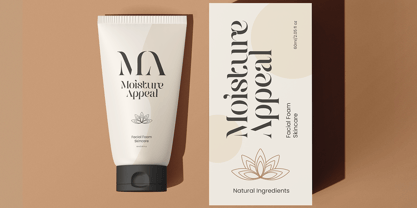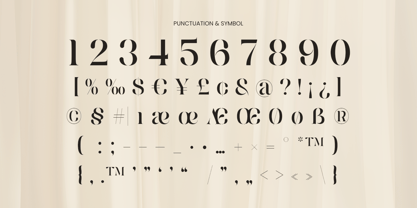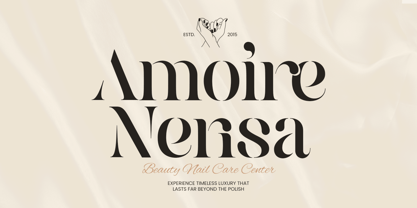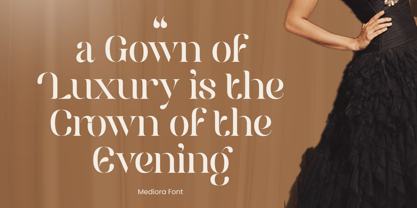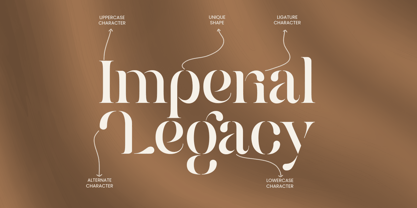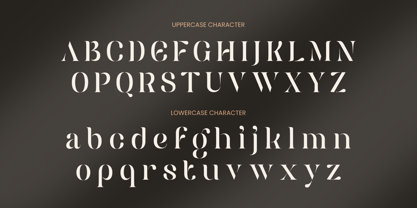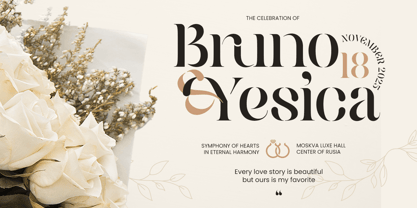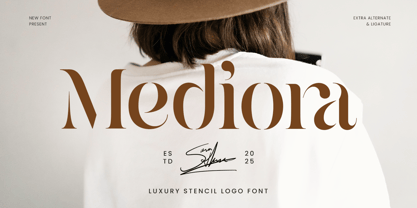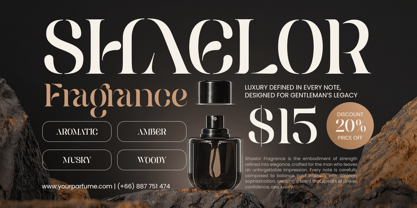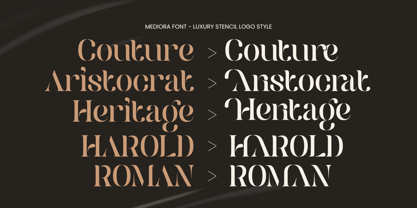
Mediora is a luxury stencil logo font that blends bold structure with refined elegance. Designed to stand out with confidence, Mediora delivers a premium stencil aesthetic that feels modern, exclusive, and powerful. Its sharp cuts and balanced letterforms create a strong visual identity while maintaining a sophisticated tone.
Perfect for luxury logos, high-end branding, fashion labels, editorial headlines, and premium packaging, Mediora offers a distinctive look that sets brands apart. The stencil details add character and authority, making it ideal for designers seeking a bold yet polished typographic solution.
Whether used for logo design, brand identity, posters, or upscale marketing materials, Mediora brings a confident luxury presence that feels contemporary and unforgettable.
Mediora – Luxury Stencil Logo Font Features
Elegant luxury stencil letterforms with bold character
Ideal for premium logos, branding, and editorial design
Strong visual impact with refined, modern details
Includes uppercase, lowercase, numerals, and punctuation
OpenType features for creative flexibility